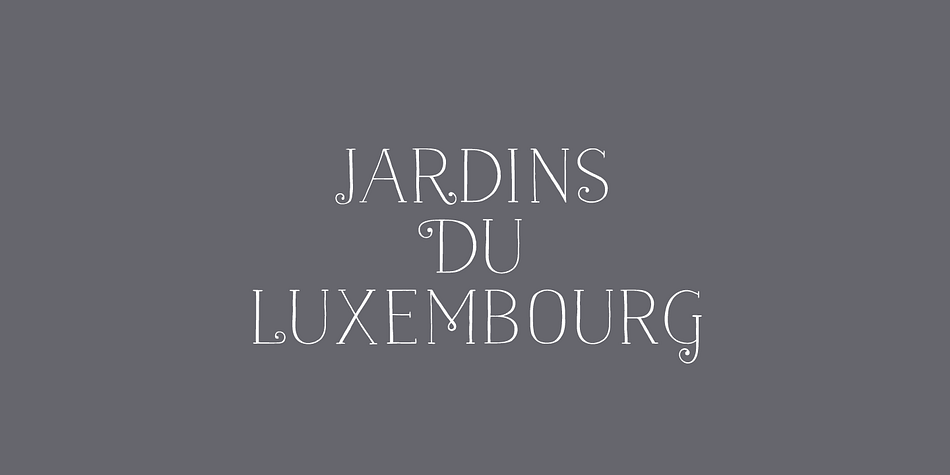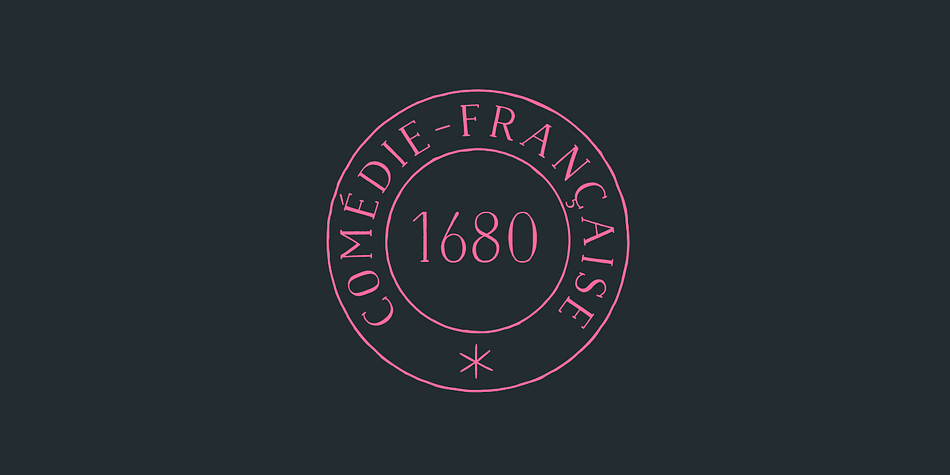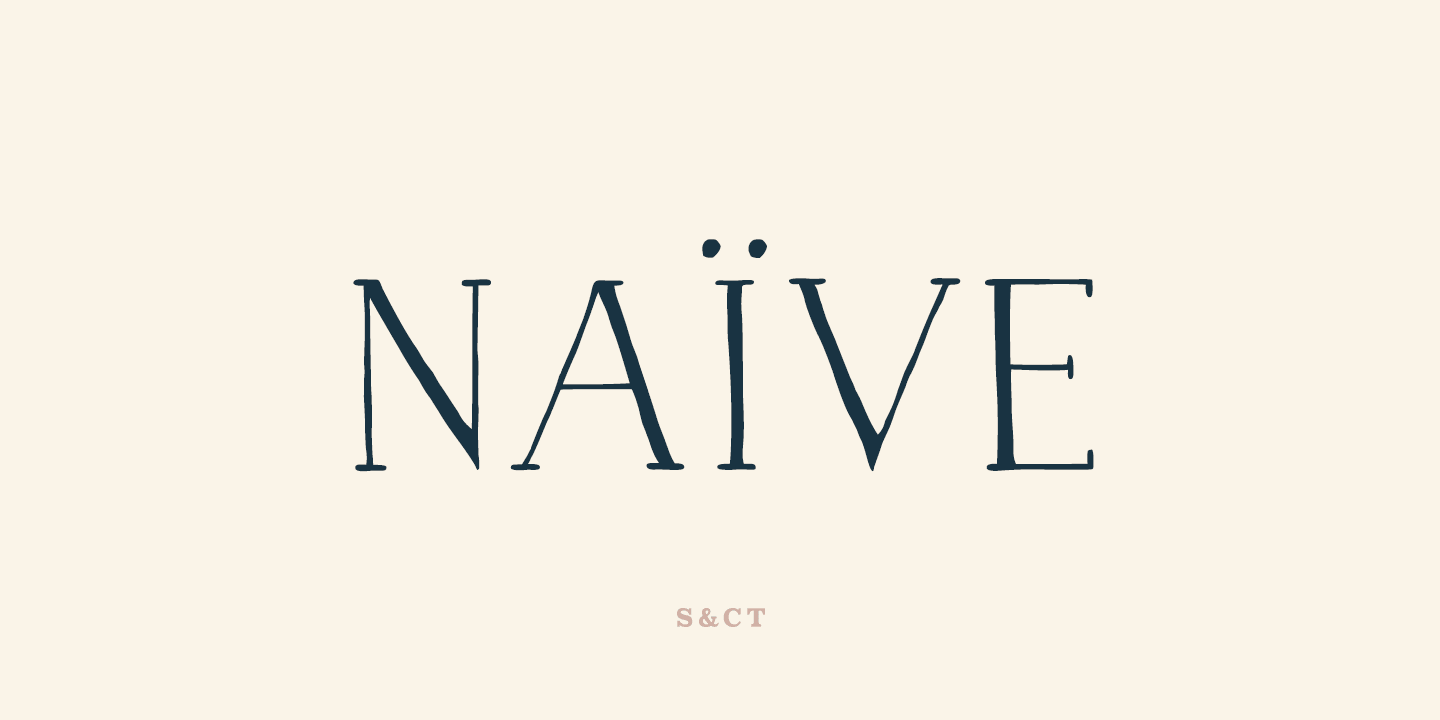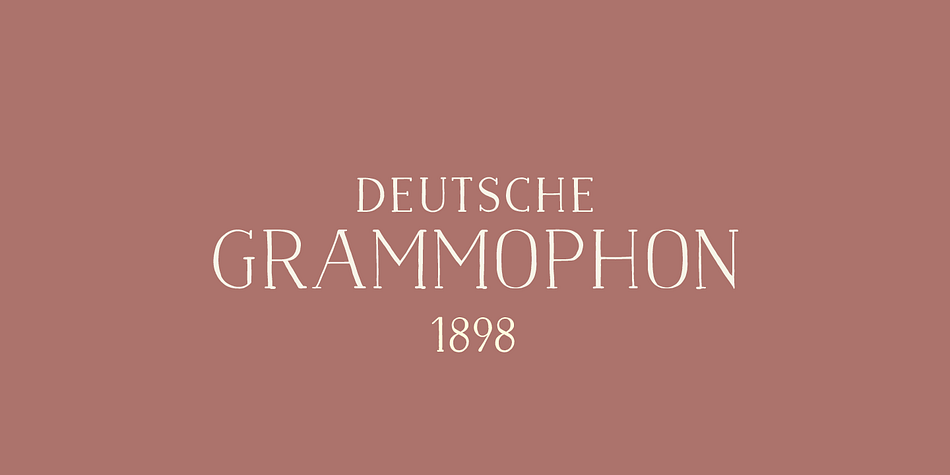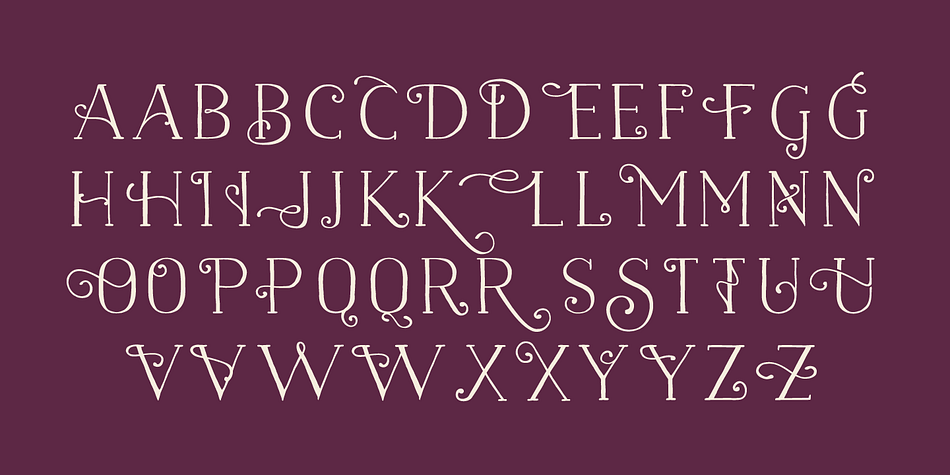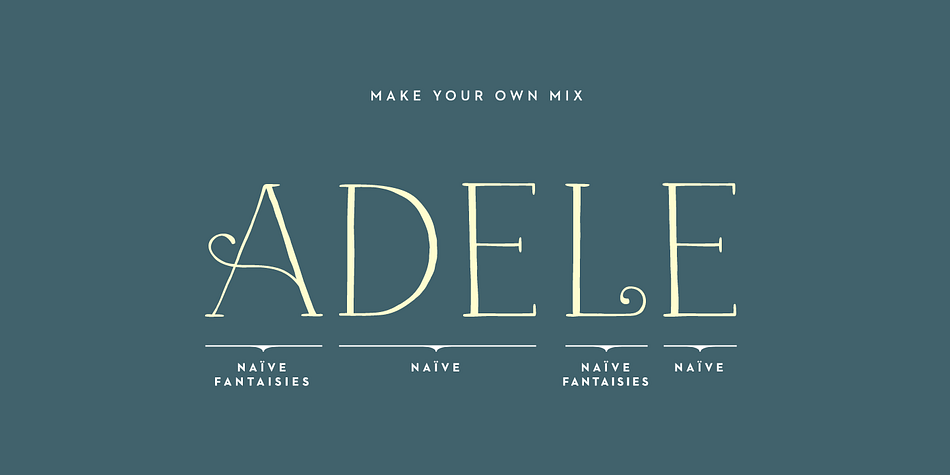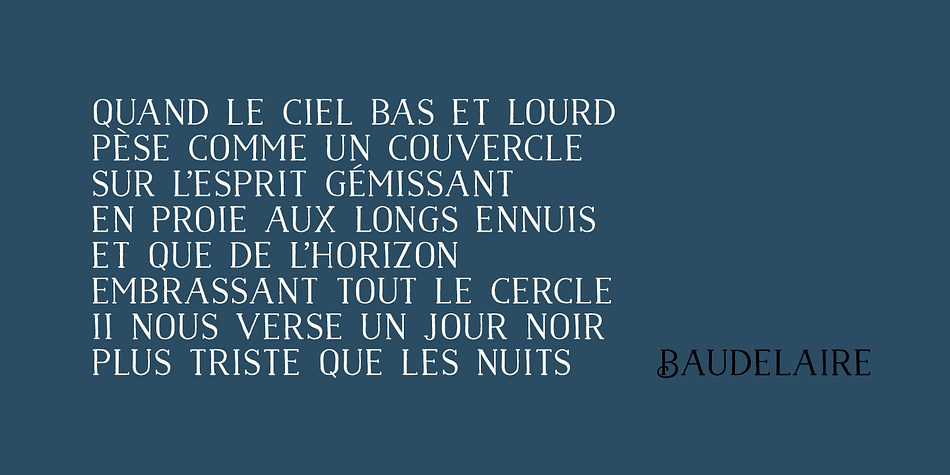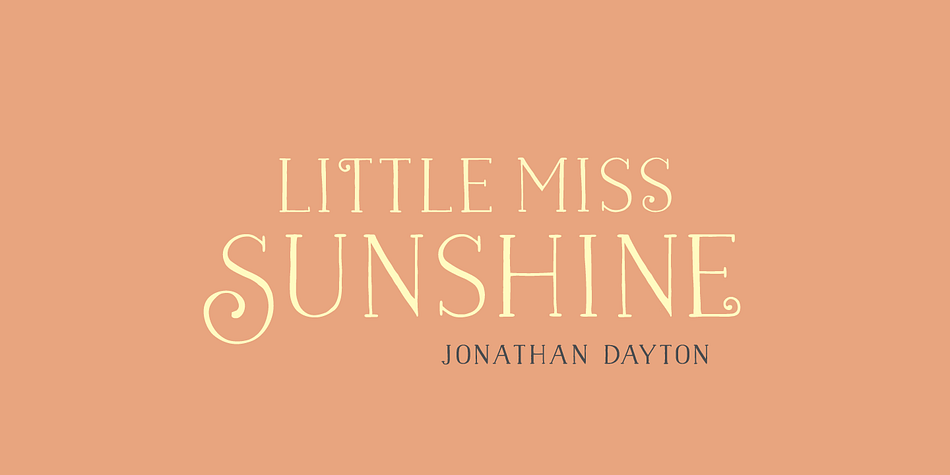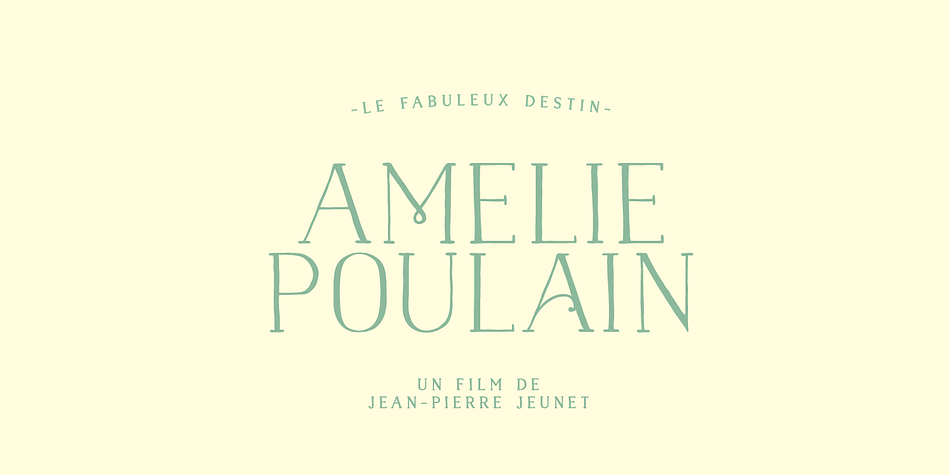
Naive is a display serif and hand display font family. This typeface has six styles and was published by S&C Type.
Naïve is a serif handwritten font designed by Fanny Coulez and Julien Saurin in Paris. Our goal was to draw a font with finely irregular lines that give a human and whimsical feeling.
The three weights of this subtle Parisian hand-drawn font can be enhanced with two alternates fancy glyphs for each letter, the “Fantaisies”, to improve your designs and bring a more poetic and unusual feeling.
This font is part of our Naïve superfamily that contains lot of variations: Line, Inline, Serif, Sans Serif, and a special Art Deco one. Just click on our foundry name to see them all!